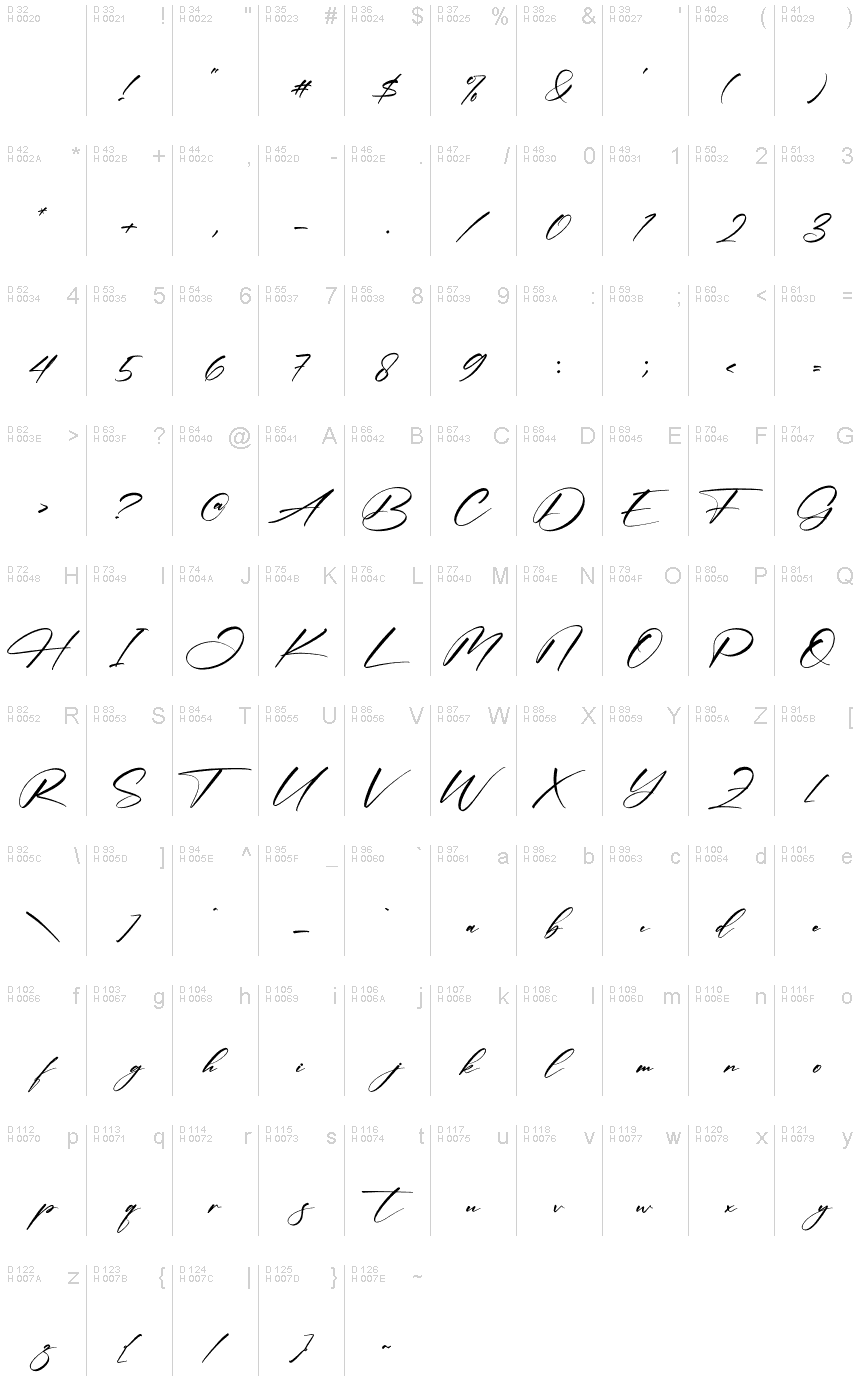
Bellandra Dessert is a gorgeous, semi-light handwritten font designed by Letterena Studios. With its elegant and modern signature style, this font is perfect for a wide range of projects. Use it to create stunning logos and branding materials that will leave a lasting impression. Add a touch of sophistication to homeware designs and product packaging.
Create eye-catching quotes, posters, and shopping bags that will stand out from the crowd. Bellandra Dessert is also ideal for designing t-shirts, book covers, name cards, invitation cards, greeting cards, labels, and photography watermarks.
Whatever your project may be, this beautiful script font is sure to add a touch of elegance and charm to it.